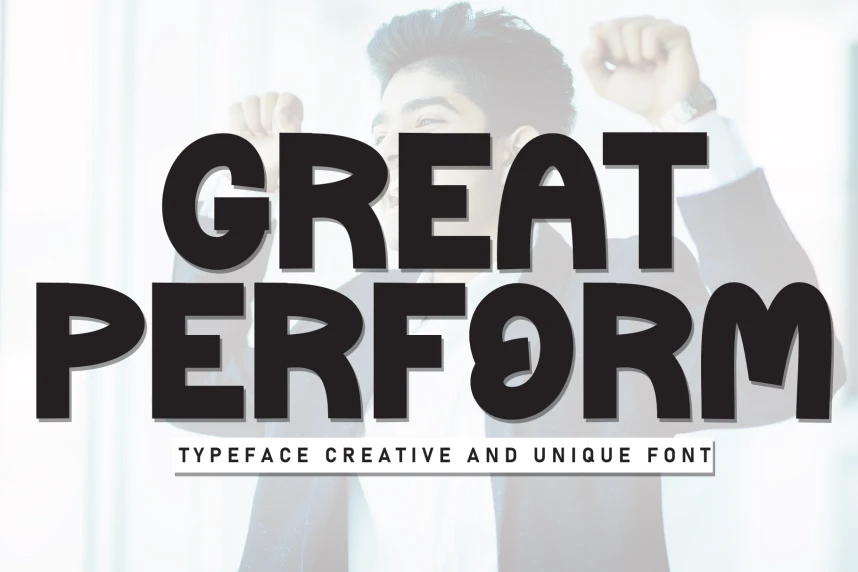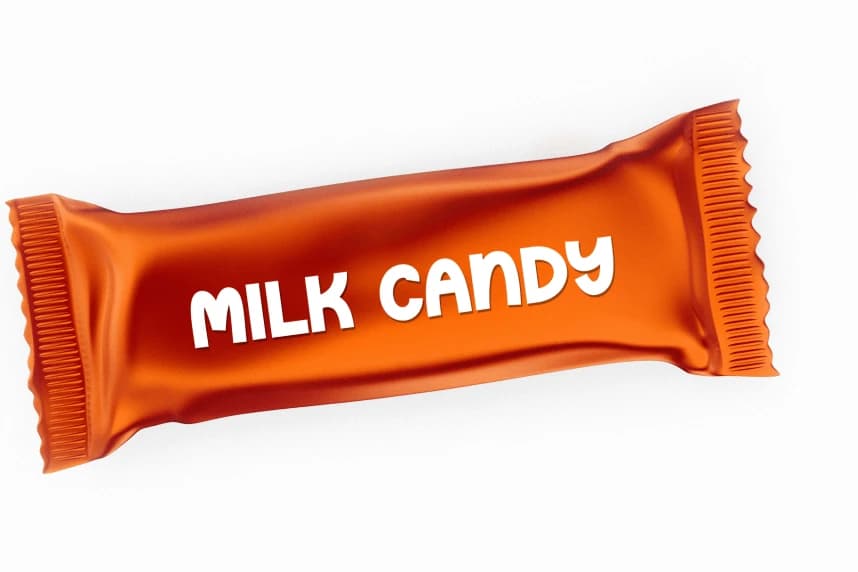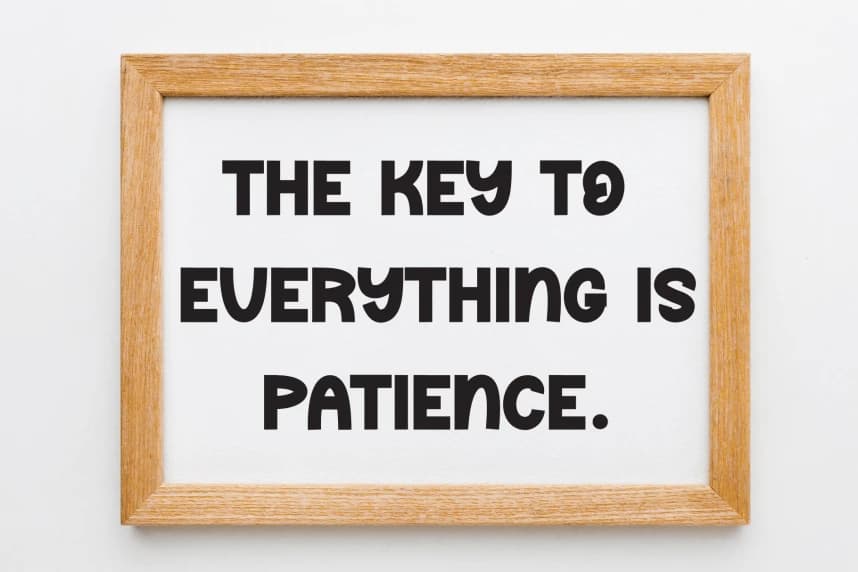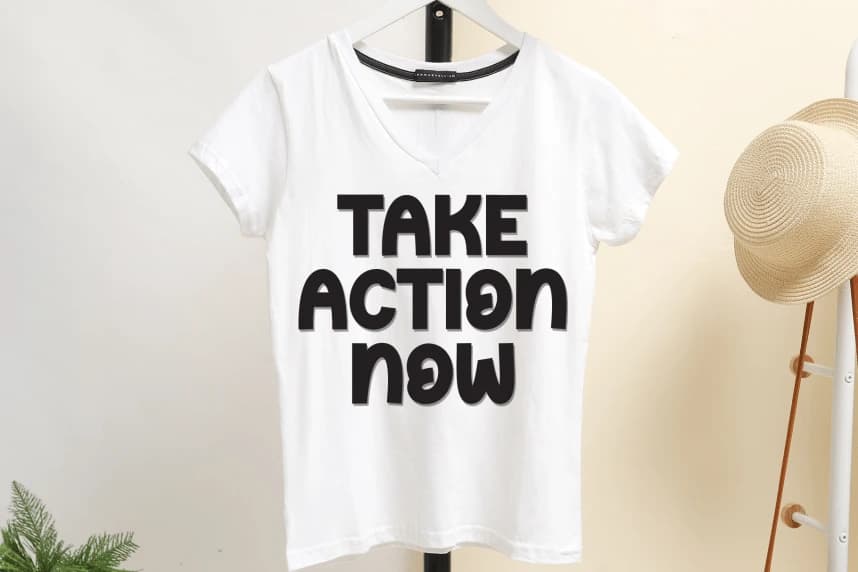
Great Perform Display Font
Great Perform Display Font is a sweet and friendly handwritten display font. Cute and fun, this font is ideal for writing wedding invitations, cards, or